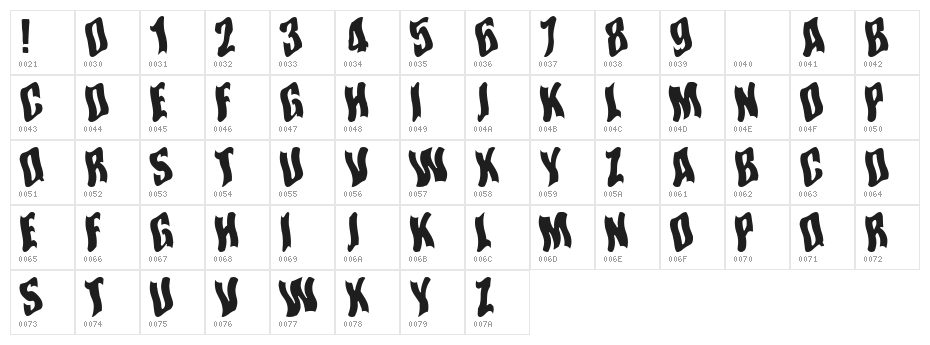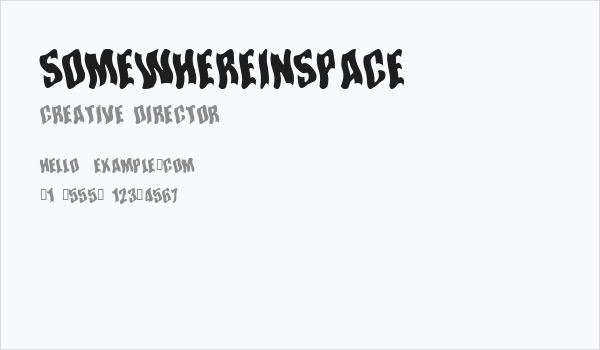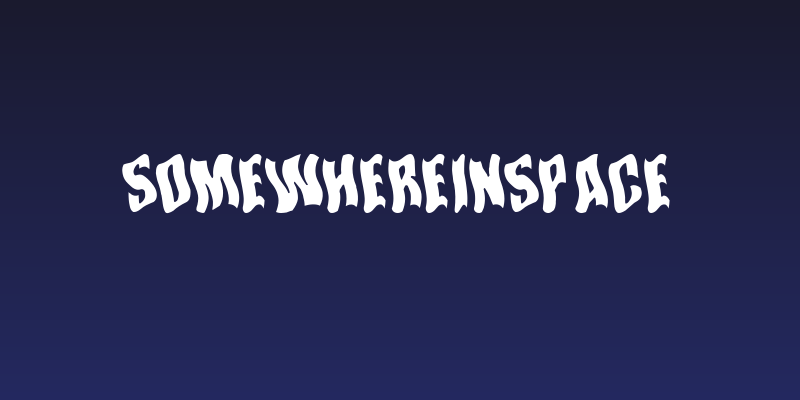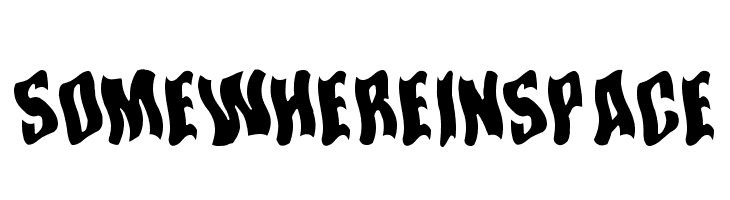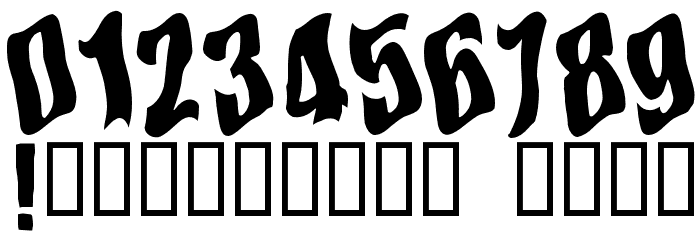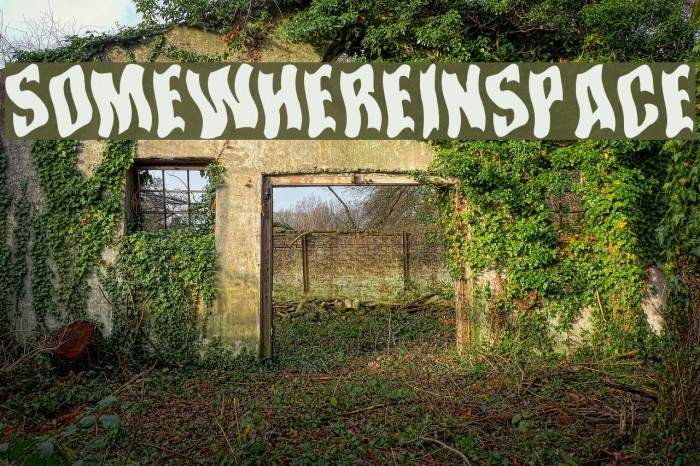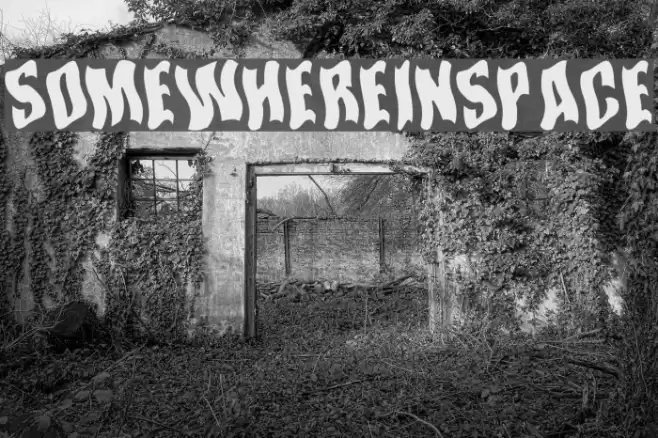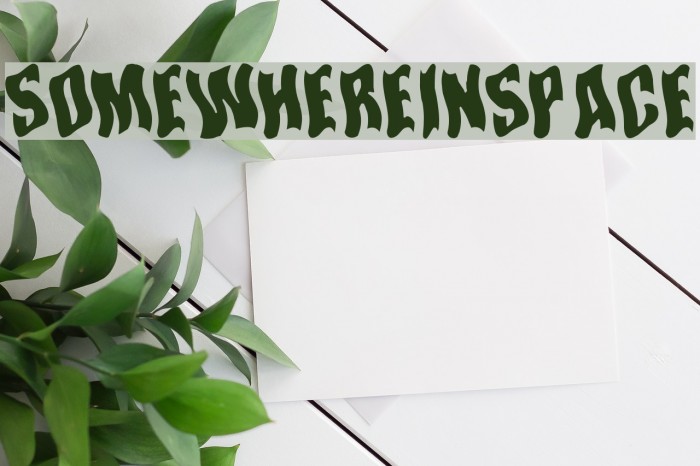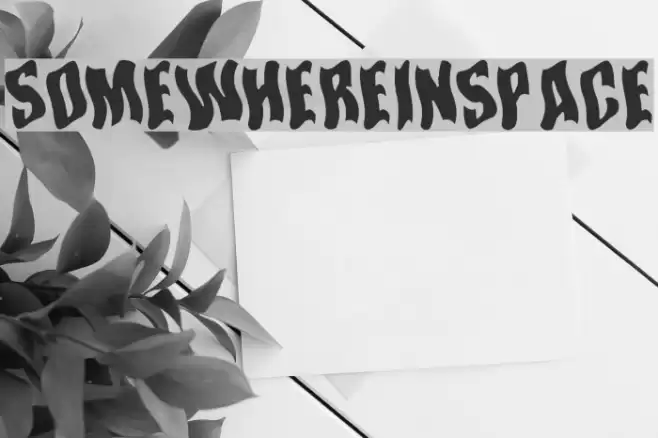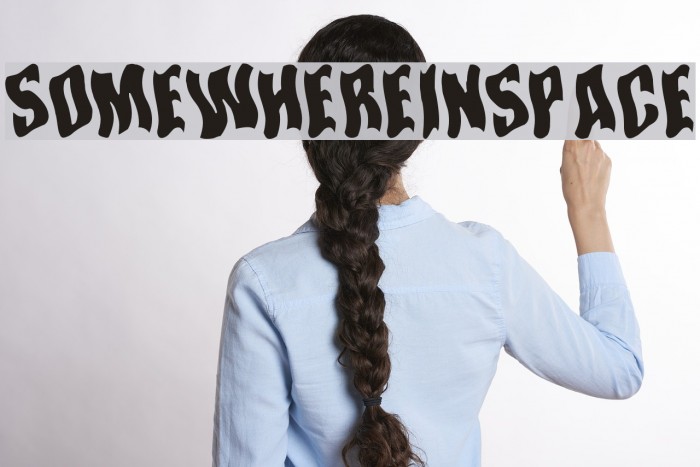
SomewhereInSpace Font
✎ Distorted Eroded
SomewhereInSpace Description
This font features a bold and dynamic style with a strong presence. The characters are heavily stylized with sharp, angular edges and a slightly distorted appearance, giving it a unique and edgy look. The uppercase and lowercase letters maintain a consistent design, with exaggerated curves and points that create a sense of movement and energy. The numbers follow the same aesthetic, ensuring uniformity across all characters. This font is ideal for projects that require a bold statement, such as posters, album covers, or branding for edgy and modern products.
| Overall Style | Modern, Edgy |
| Proposed Projects | Posters, album covers, edgy branding, modern product packaging. |